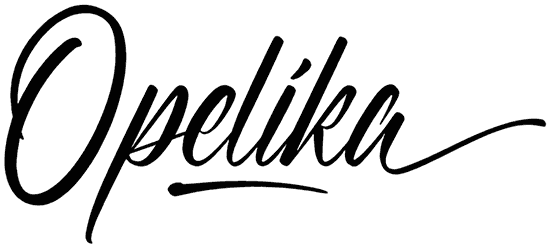
Opelika Font
Give Opelika, a calligraphy font with a hand-drawn style, a try if you want your game interfaces, packaging, books, or presentations to stand out from the crowd.
Even though it doesn’t have any numbers and is hard to read, this script font can give your work an air of sophistication. We have a growing collection of stunning fonts that will help you raise the quality of your designs